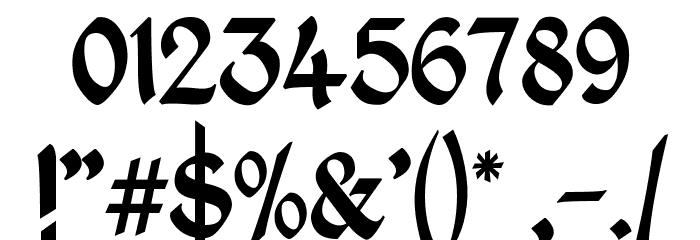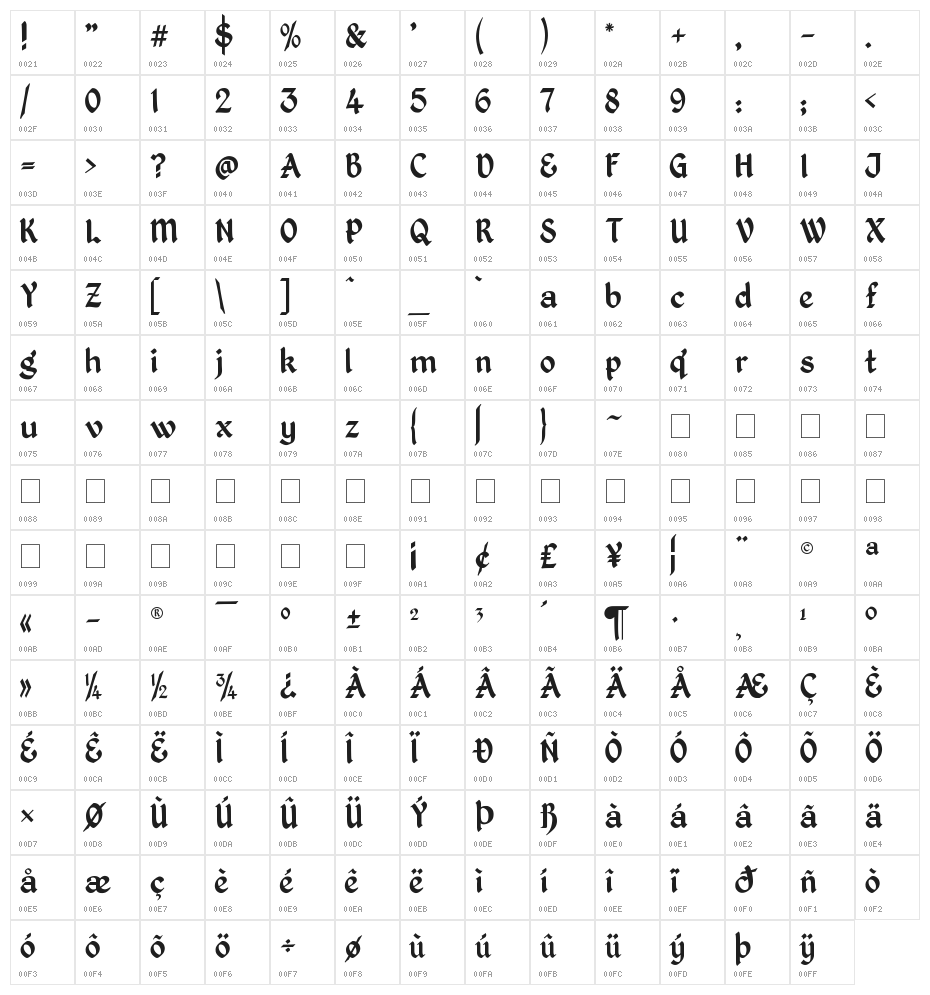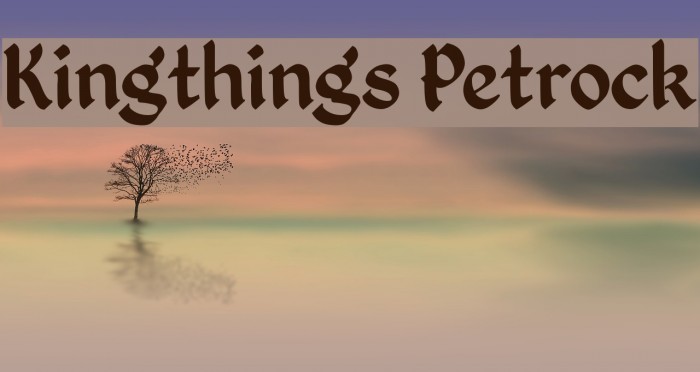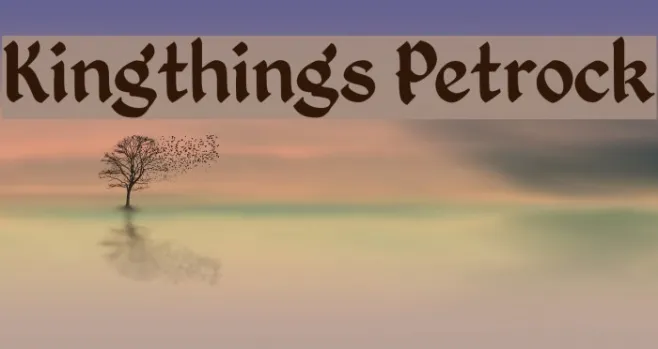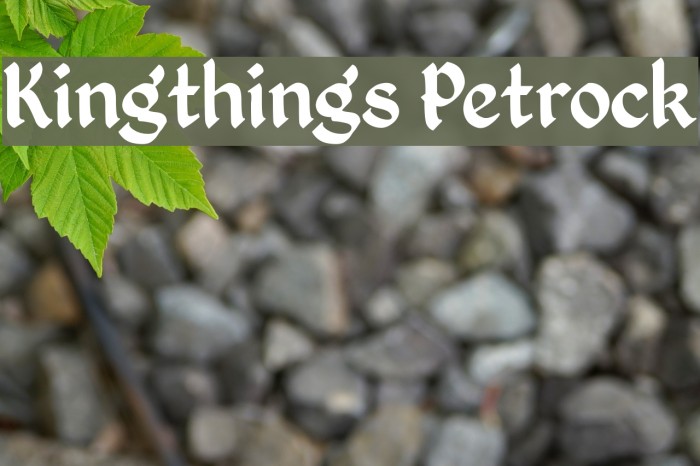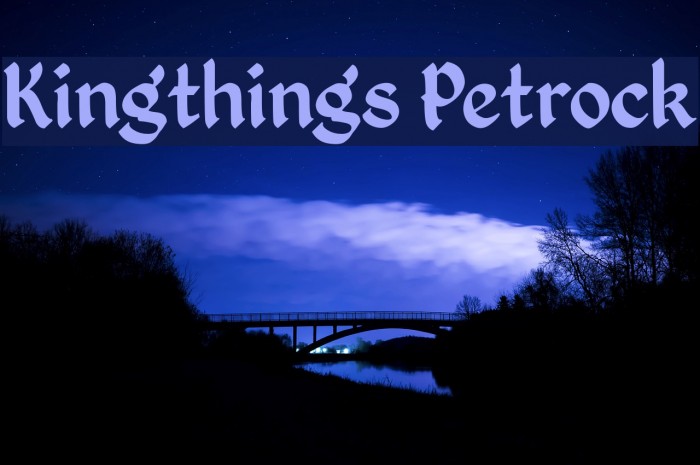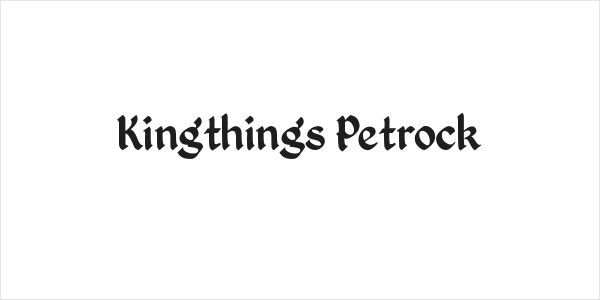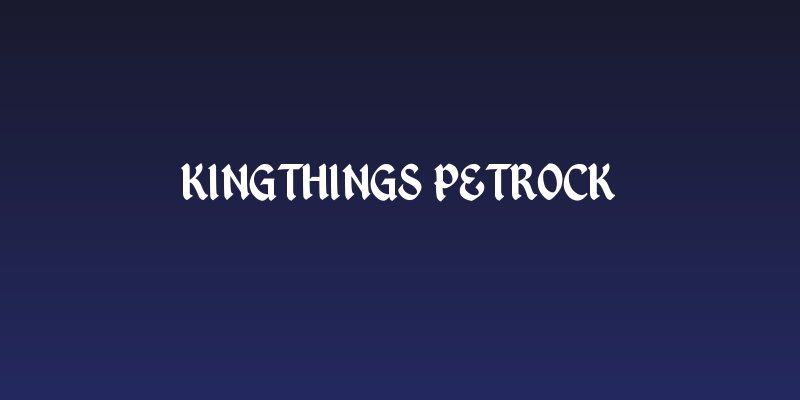
Kingthings Petrock Font
Kingthings Petrock Description
This font features a distinct medieval style with a strong, bold presence. The characters are designed with sharp, angular edges and a slightly condensed form, reminiscent of traditional blackletter scripts. The uppercase letters are particularly ornate, with intricate details that give them a historical and decorative appearance. The lowercase letters maintain a similar style but are more simplified for readability. The numerals and special characters are consistent with the overall theme, providing a cohesive look across all glyphs. This font is ideal for projects that require a touch of antiquity and elegance.
| Use Case | Headlines, Logos, Decorative text |
| Proposed Projects | Suitable for historical-themed designs, book covers, posters, and branding that require a vintage or medieval touch. |